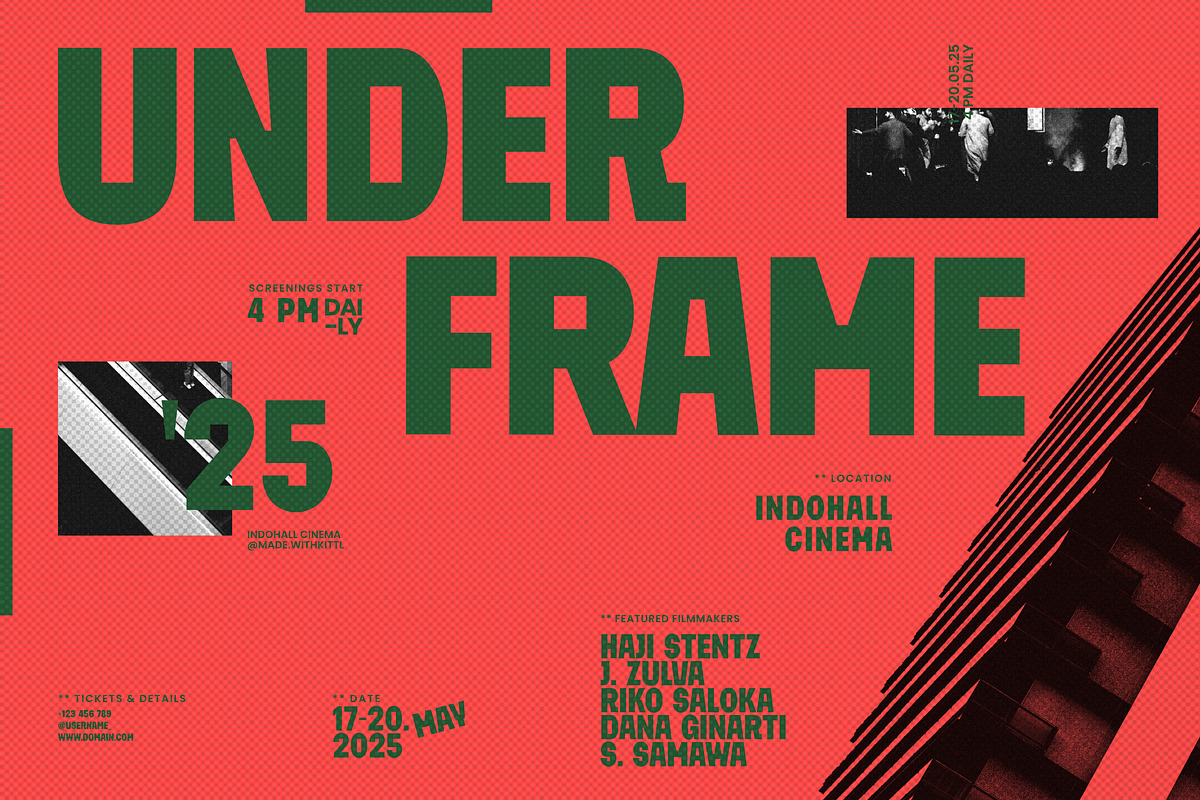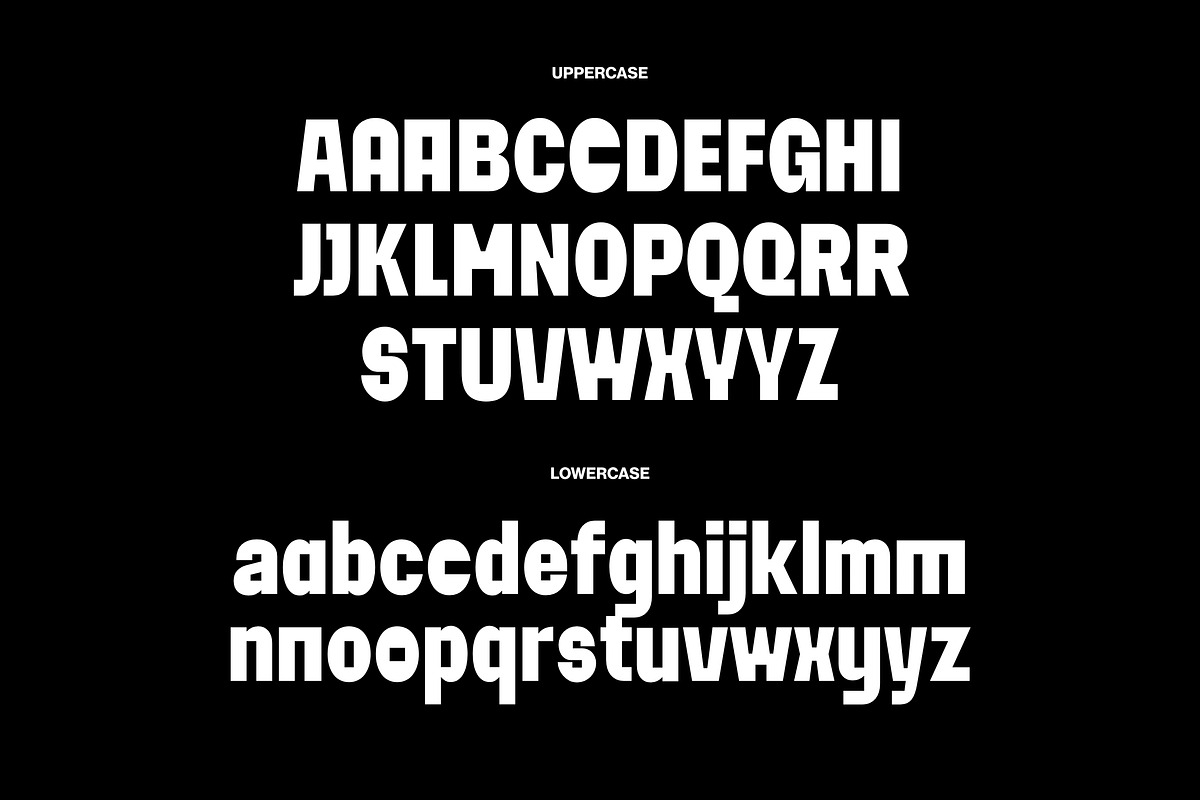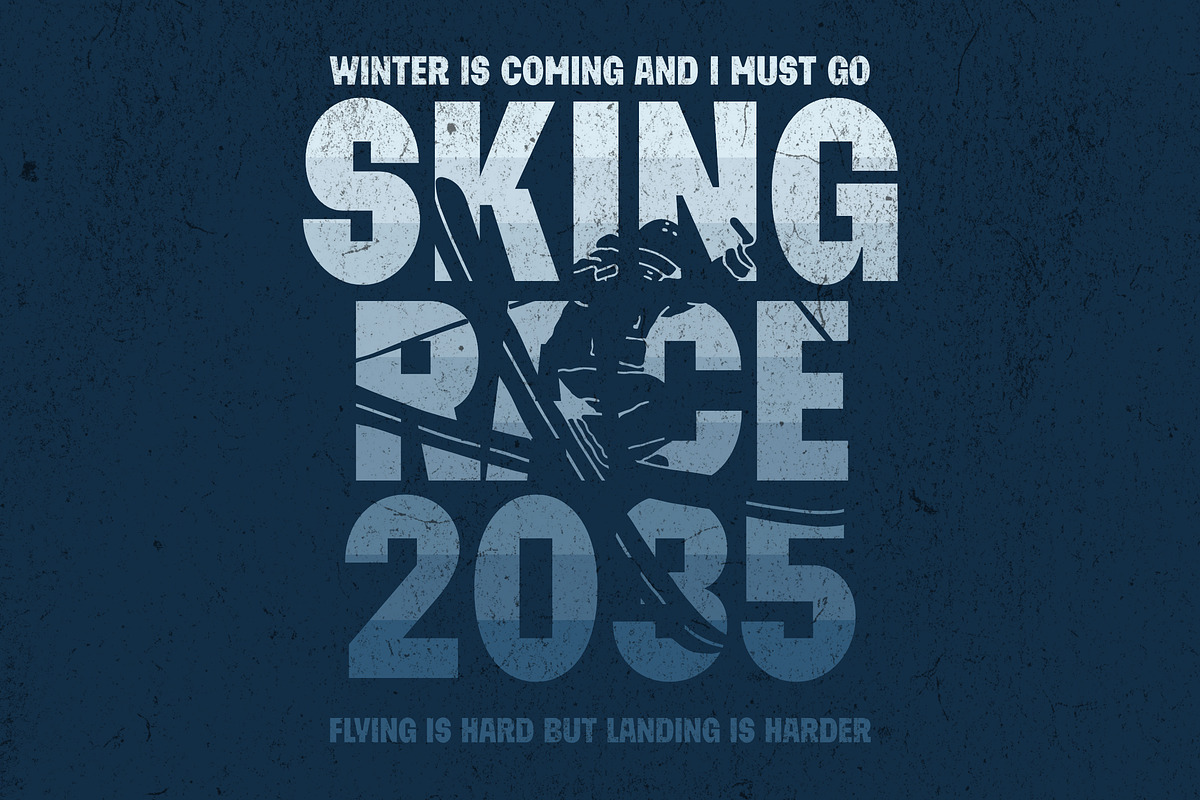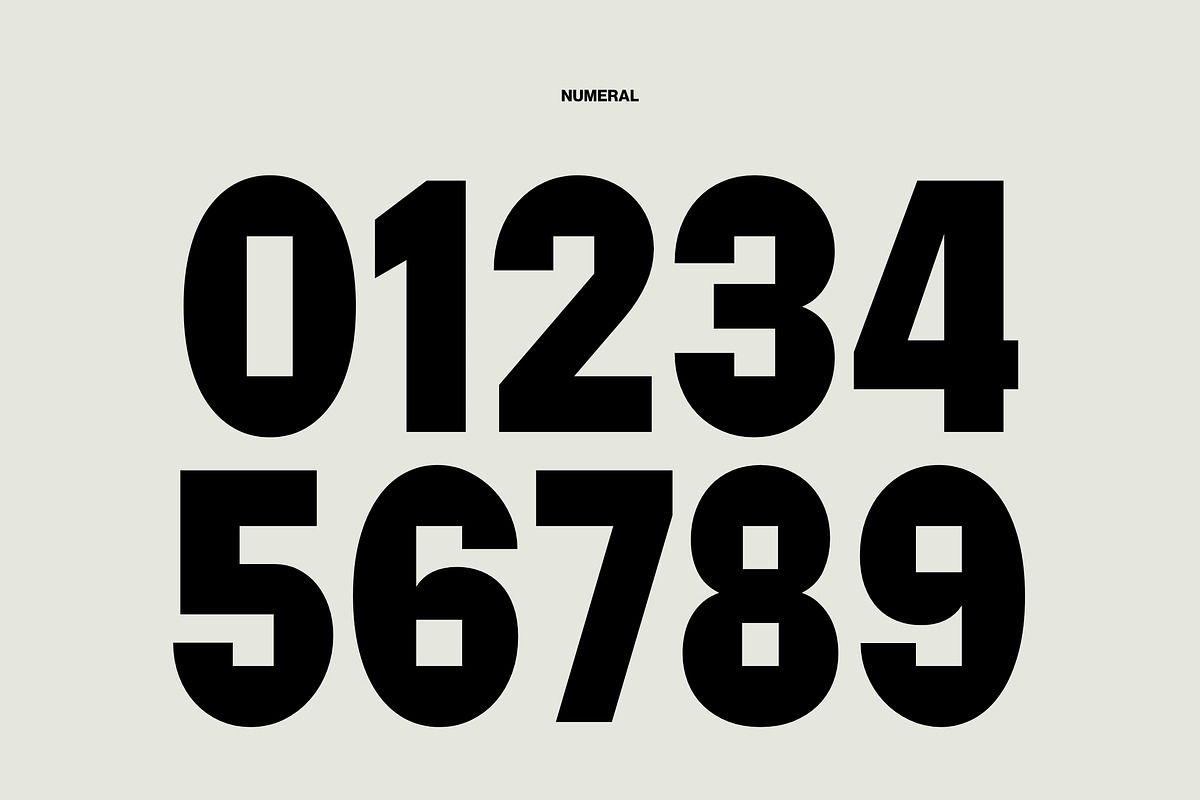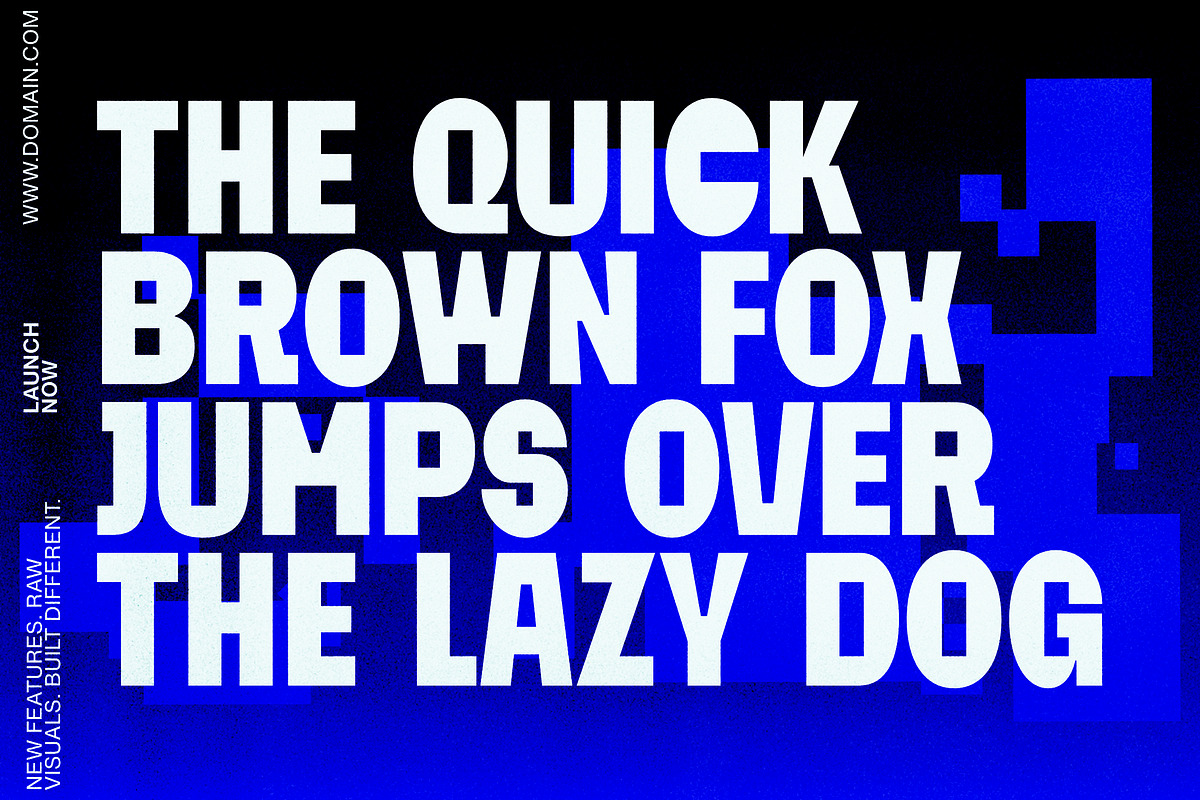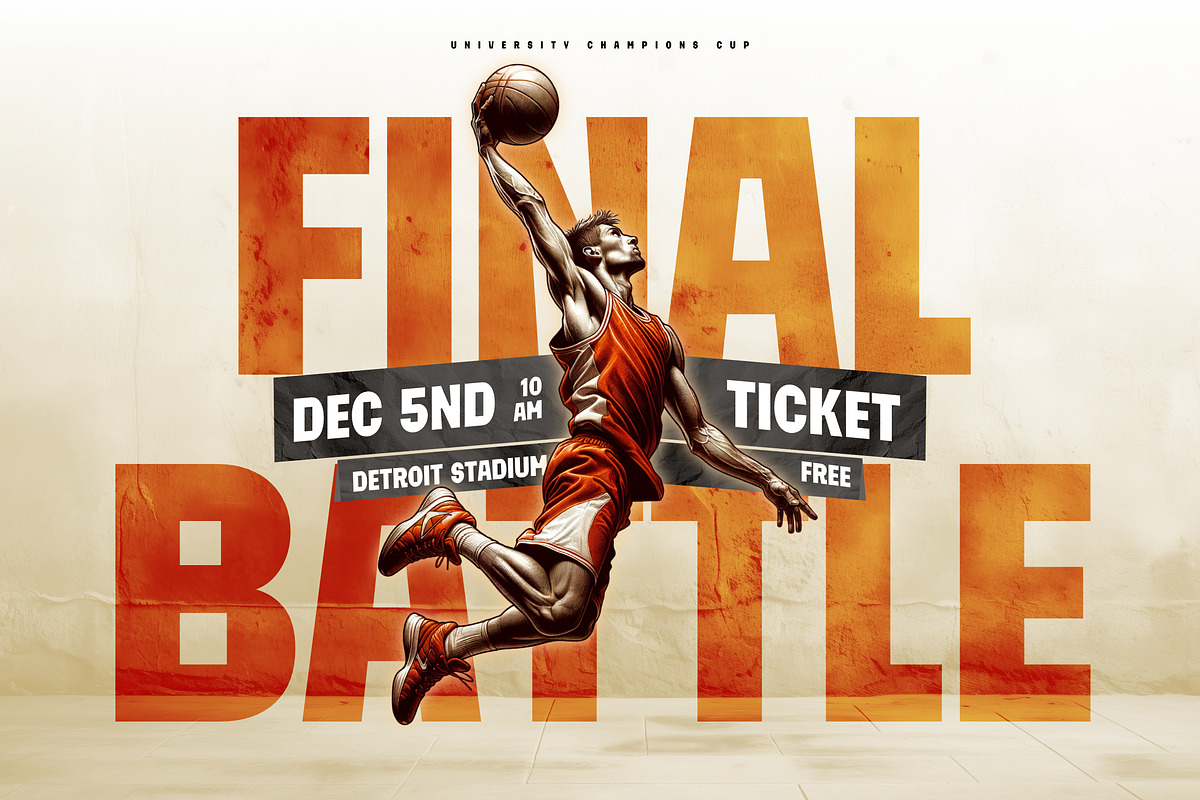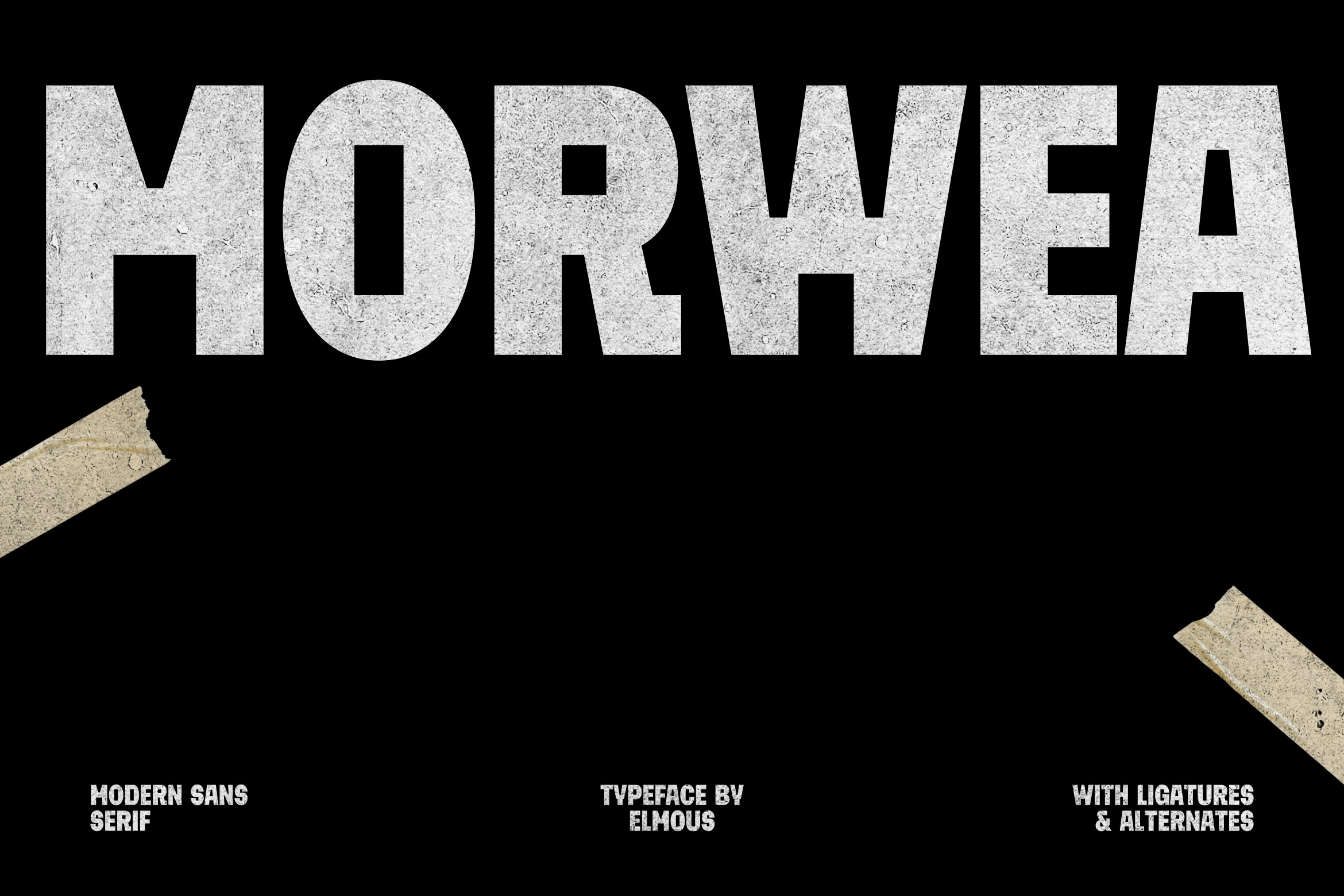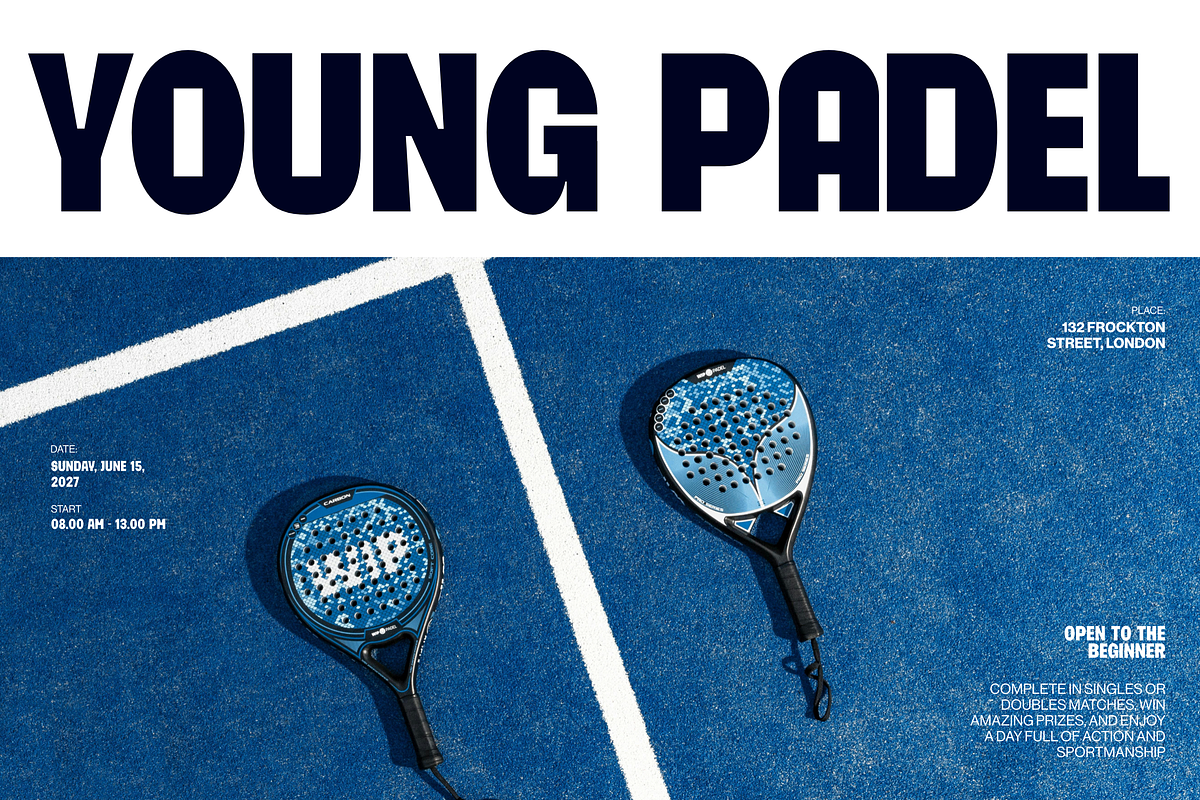
Morwea - Bold Display Font
Morwea is a bold display sans serif typeface designed to make a strong visual statement. Built with heavy geometric strokes, a tall condensed silhouette, and punchy blocky proportions, Morwea delivers an uncompromisingly modern, athletic, and industrial vibe.
This font thick, solid letterforms crafted specifically for high visibility headlines, title sequences, and large format print work.
This font ideal for:
Sports and Athletic Branding: Game day flyers, jersey typography, tournament posters, fantasy sports graphics, sports social media content, and fitness branding.
Urban and Streetwear Fashion: Apparel graphics, merch branding, hat embroidery, and streetwear lookbooks.
Editorial and Advertising: Event posters, film screening announcements, magazine cover headlines, and digital banners.
Package Design: Tech product labels, album art, and industrial packaging.
Uppercase and Lowecase Characters.
Numerals and Punctuations.
Alternates and Ligatures.
Multilingual Support.